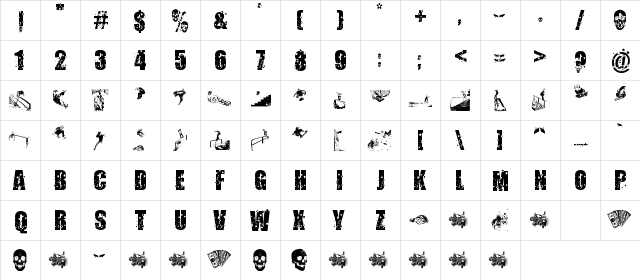
Skate or Die Regular
Design Context for Skate or Die Typeface
Skate or Die is a composed and adaptable typeface that performs quietly and consistently across a wide range of design contexts.
Pro Tip: Pair Skate or Die with a font of contrasting weight or personality to build a more expressive typographic hierarchy.